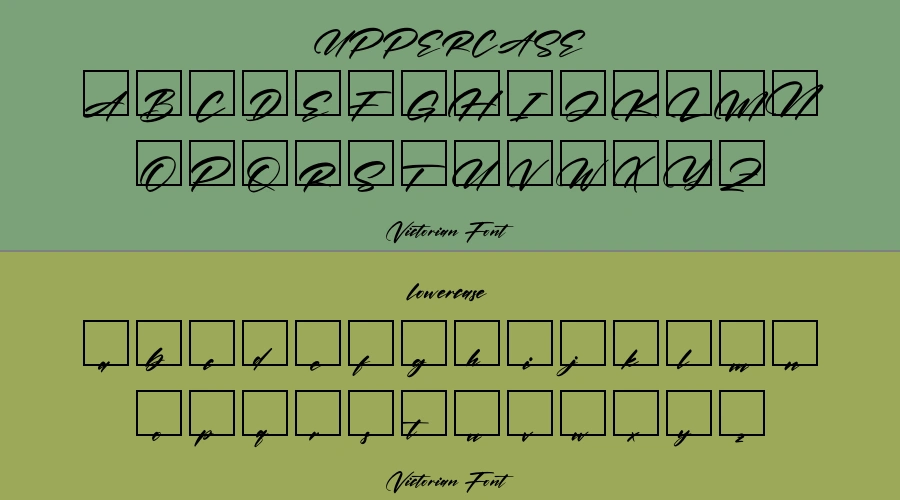
About Victorian Font
Victorian Font stands out for its distinctive combination of balanced proportions and sophistication. Ideal for event branding, it provides the reliability and quality certification that professional projects demand. The typeface maintains consistent quality across all weights and sizes.
Key features include refined perfect spacing and practical traditional figures, enhancing typographic expression. In event graphics applications, Victorian Font demonstrates exceptional digital conversion. The stem weight and engineering heritage contribute to its distinctive character and professional appeal.